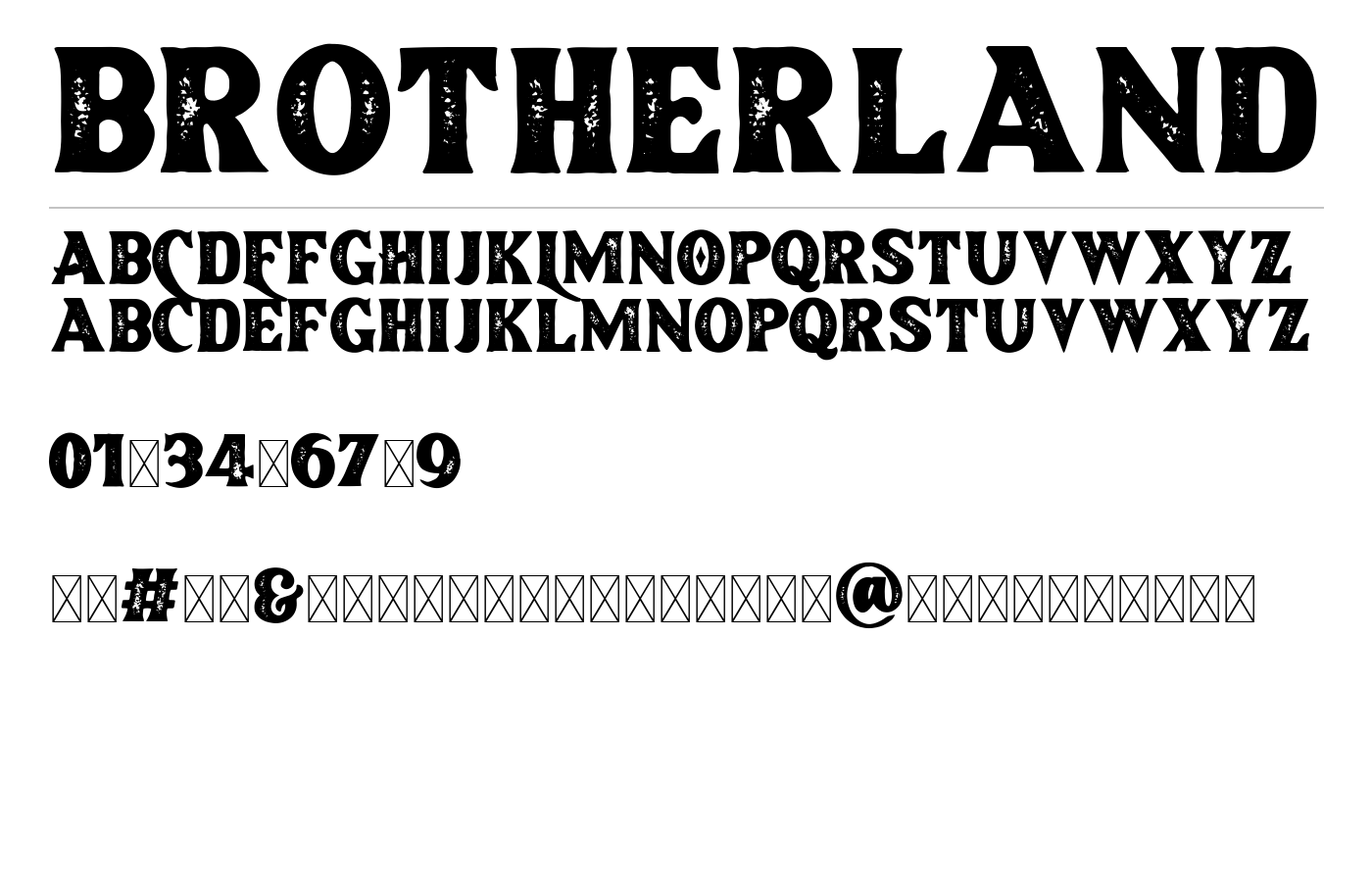
Brotherland is a bold slab serif font with a vintage, rugged texture that gives it a strong, sturdy character. Its thick, blocky letterforms paired with subtle distressing evoke a nostalgic, western or industrial vibe, making it ideal for headlines, logos, or branding that seeks to feel both classic and bold. This font works well where a confident and slightly rustic personality is needed, such as in packaging, posters, or fashion branding with a vintage flair.
Brotherland Font
About Brotherland Font
| Font family | Brotherland Font |
| Designer | Andika Setiawan |